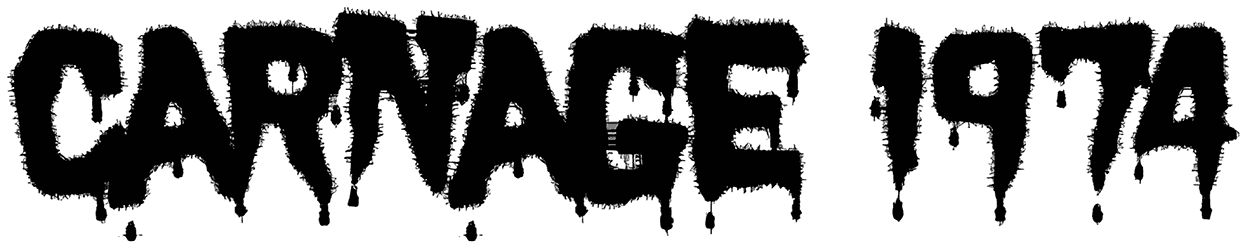
Carnage 1974 Font
Welcome to Carnage 1974, an all-caps horror font that comes with melting-style characters and instills a vibe of fear, anxiety, dynamism, or disorder in the audience’s minds.